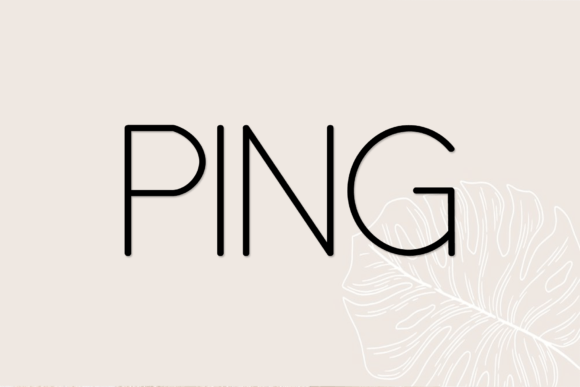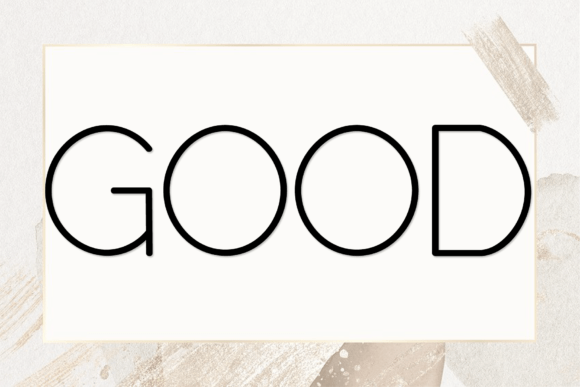
What Is Mixue Font?
Mixue Font is a classic and simple handwritten script designed to add a warm, personal touch to any project. Each letter features clean lines and smooth curves, giving your text a polished yet approachable look. Because of its timeless style, this font fits beautifully into many design themes.
You will see how easily Mixue adapts to all kinds of creative work, from modern to traditional.
Mixue is a versatile font suitable for many uses. For example, it’s perfect for craft projects, labels, or DIY designs. Its friendly script makes every detail feel handmade and unique.
In addition, it works beautifully for digital design and social media graphics. If you want your posts to look fresh and engaging, Mixue helps you create a consistent style.
You can also use it in presentations for work or school. The clear, simple letters make slides easy to read while adding a touch of personality.
When you design greeting cards or invitations, Mixue makes each message feel heartfelt and special. Even simple announcements look more thoughtful with this font.
Moreover, Mixue is excellent for posters, book covers, packaging, and more. Your designs will stand out and look polished every time.
Why Should You Choose Mixue Font?
There are many reasons to choose Mixue for your next project. First, it is easy to read at all sizes. Whether you use it for large headings or small captions, every letter stays clear and elegant.
Also, Mixue pairs well with serif and sans-serif fonts, so you can create layouts that feel balanced and professional.
Designers love that it looks polished right out of the box, which saves time and ensures beautiful results.
Mixue Font brings warmth and clarity to every project. For example, when you want your work to feel approachable and genuine, this font makes it easy.
Even minimalist layouts look more inviting with Mixue’s smooth strokes. Whether you create social media content, branding, or printed materials, your work will stand out.
Using a premium handwritten font also shows your commitment to quality and detail. This helps build trust with your audience and makes your designs more memorable.
Mixue Font is more than just a typeface—it’s a versatile design tool that helps you share ideas with style and confidence. From crafts and invitations to logos and digital projects, this font adapts easily and leaves a lasting impression.